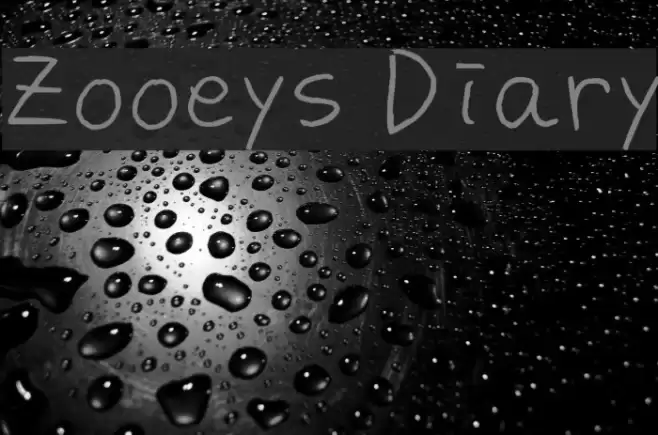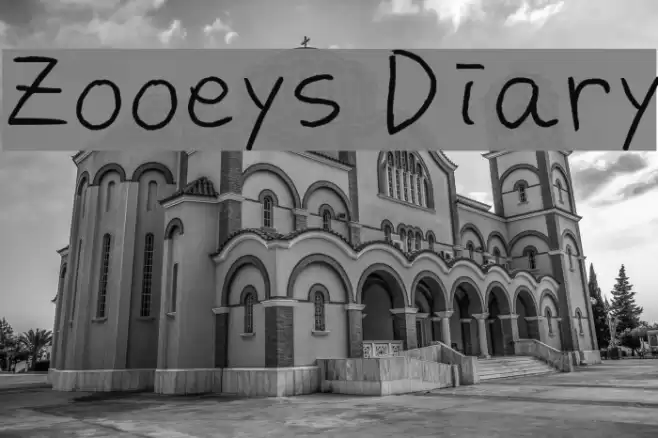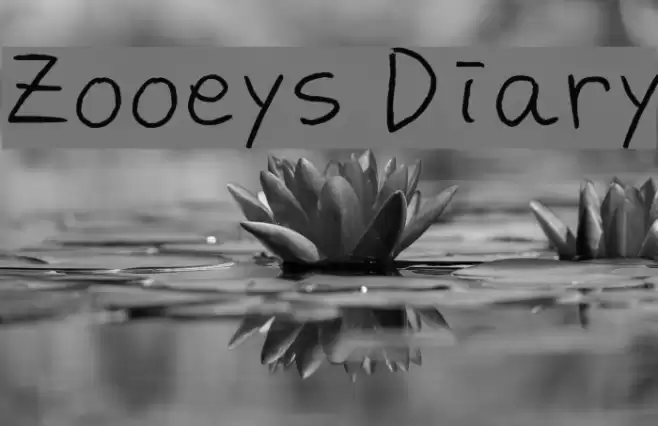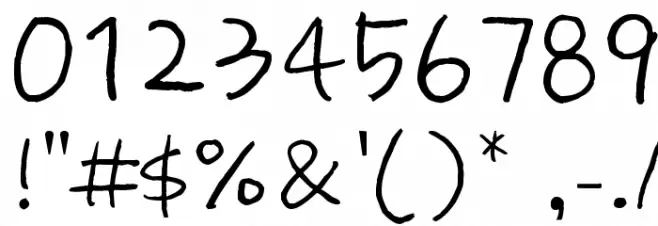
Zooeys Diary Font
Zooeys Diary Description
This font exudes a playful and casual handwritten style, characterized by its irregular strokes and organic flow. The letters have a natural, slightly uneven baseline, giving it an authentic, personal touch. The uppercase letters are bold and prominent, while the lowercase letters maintain a consistent, friendly appearance. Numbers and special characters follow the same informal style, making the font versatile for various creative applications. The overall design is approachable and warm, ideal for projects that require a personal or informal tone.
A playful, handwritten font with an organic and casual style from Handwritten fonts.
- Proposed Projects: Ideal for personal diaries, children's books, casual invitations, and creative branding projects.
- Overall Style: Casual
- Use Case: Headlines, Informal text, Creative projects